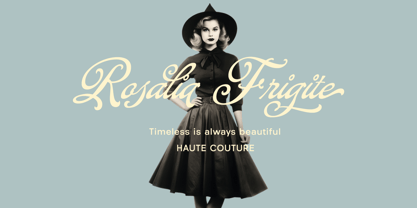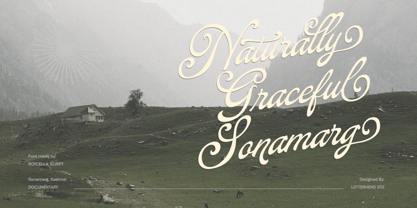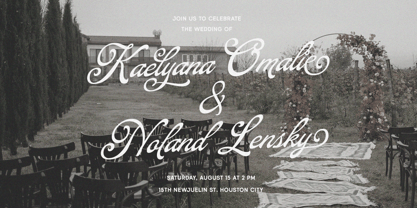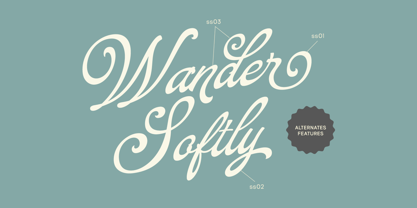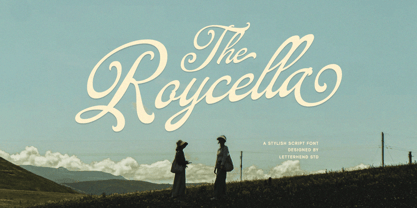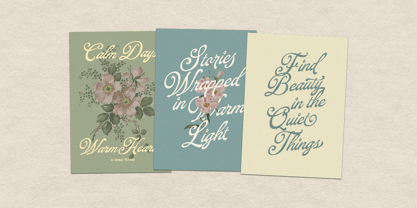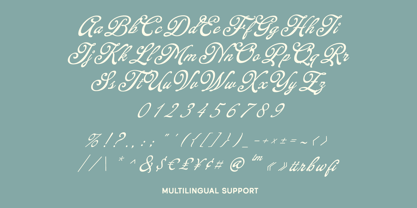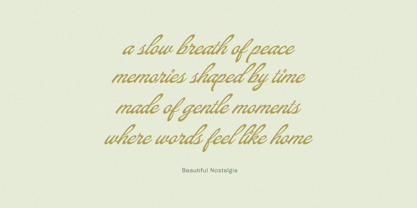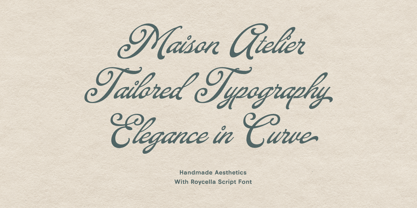
Roycella
von Letterhend
Die Schriftfamilie Roycella wurde von Hendry Juanda entworfen und von Letterhend veröffentlicht. Roycella enthält 1 Stile. Mehr über diese Familie
The Roycella is an elegant, vintage-inspired script font with sweeping curves, long flowing swashes, and a refined handwritten grace that feels cinematic and timeless. Its smooth strokes and romantic rhythm evoke classic title cards, countryside nostalgia, and warm storybook charm. Features : Uppercase & lowercase Numbers and punctuation Alternates & Ligatures Multilingual Support PUA encoded
Designer: Hendry Juanda
Aktuelle Foundry: Letterhend